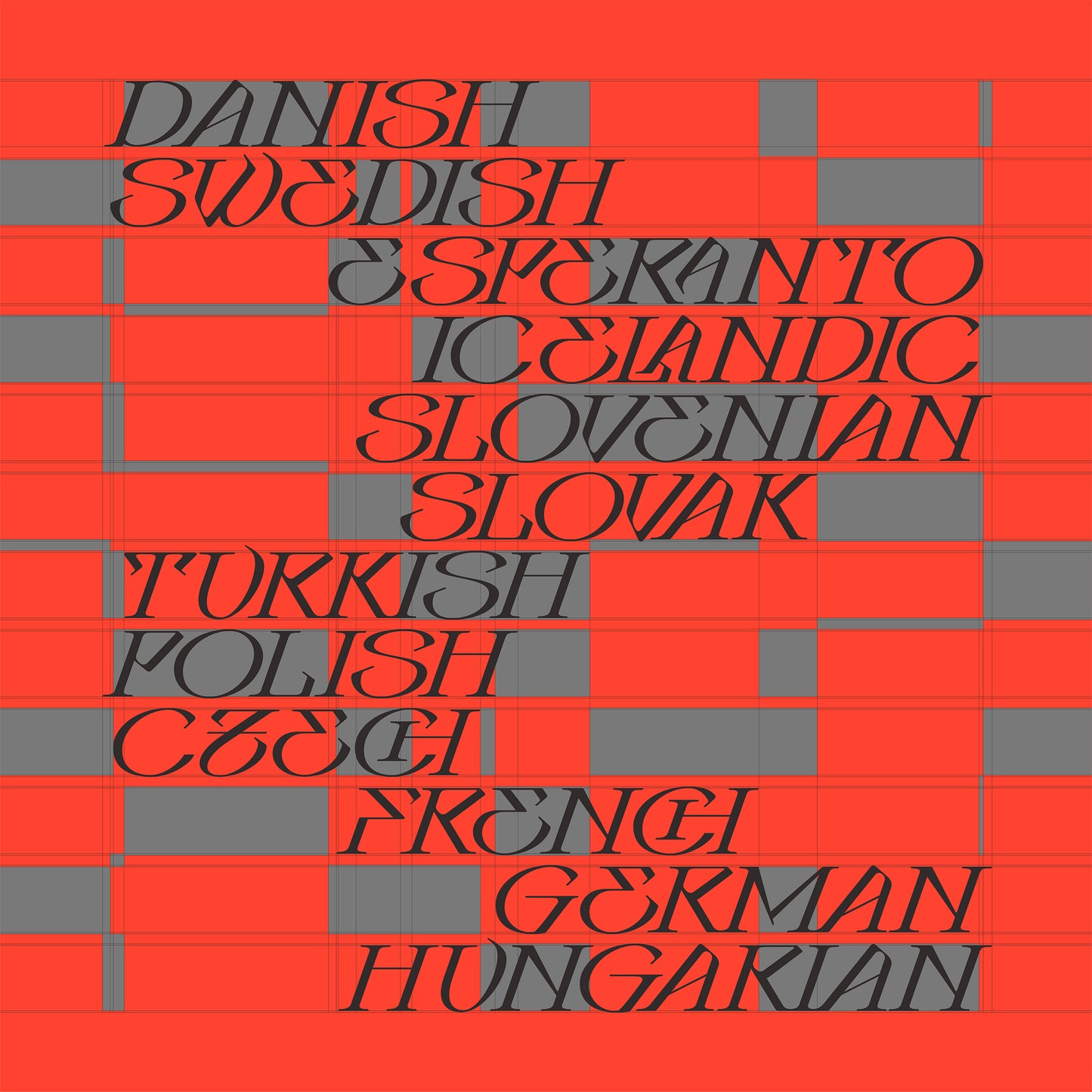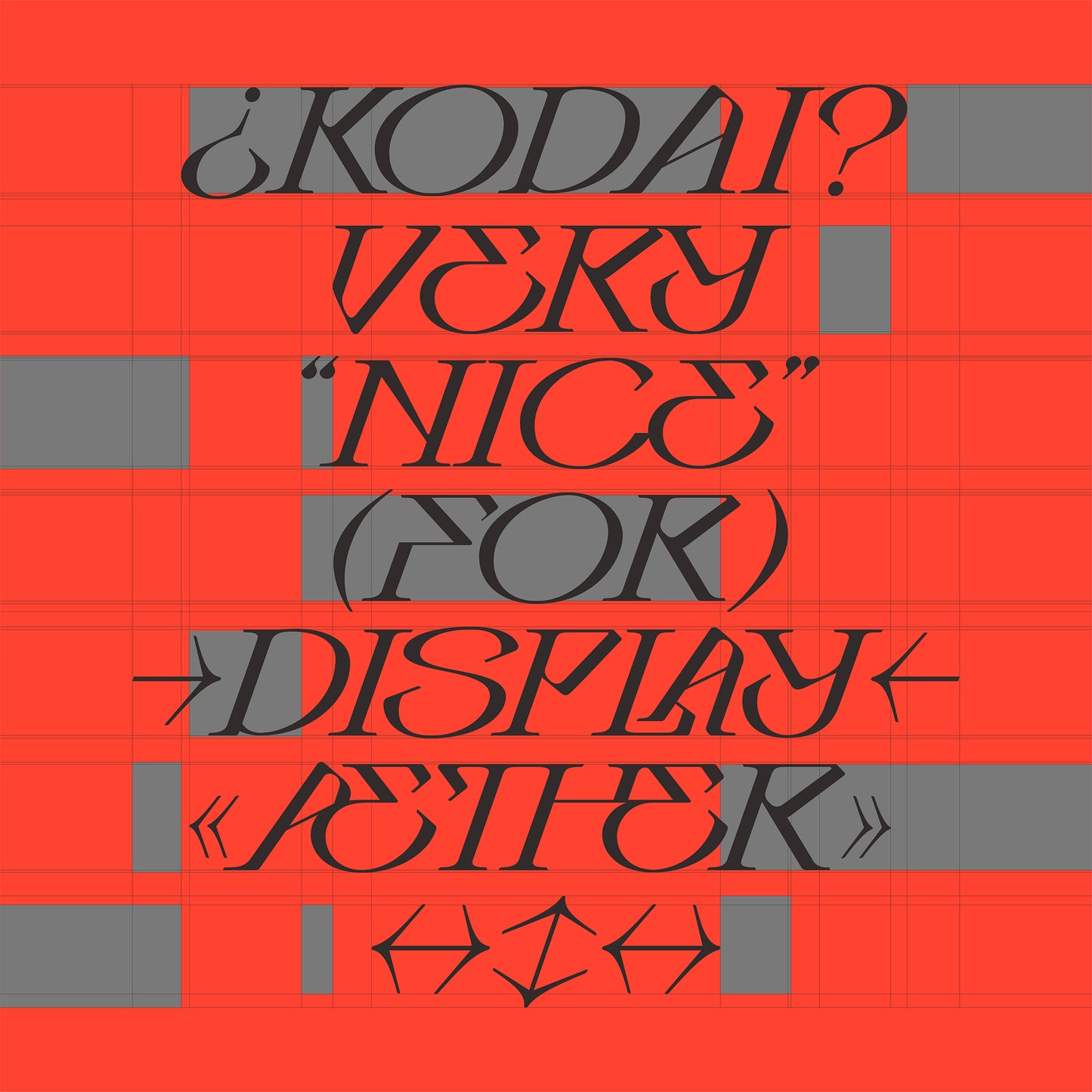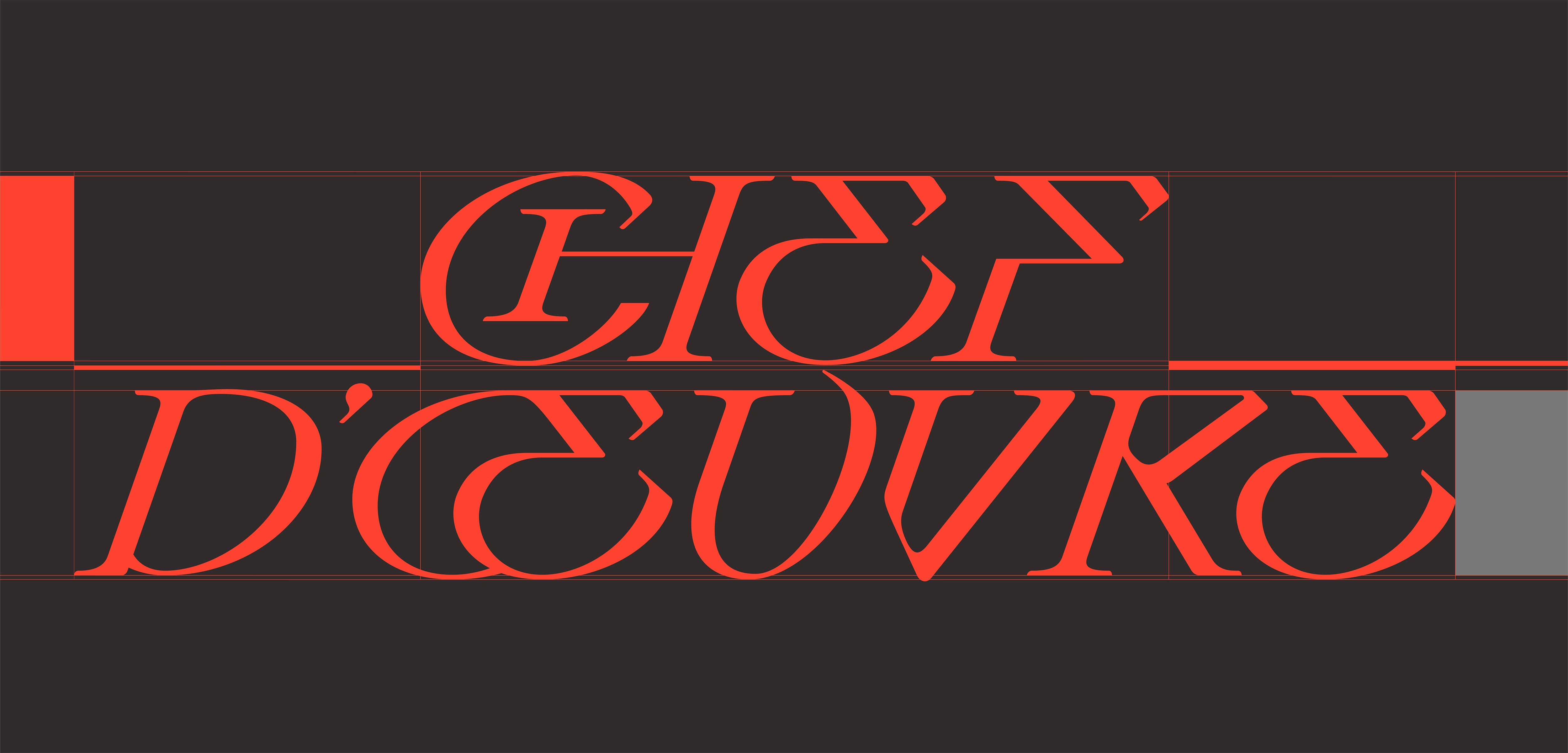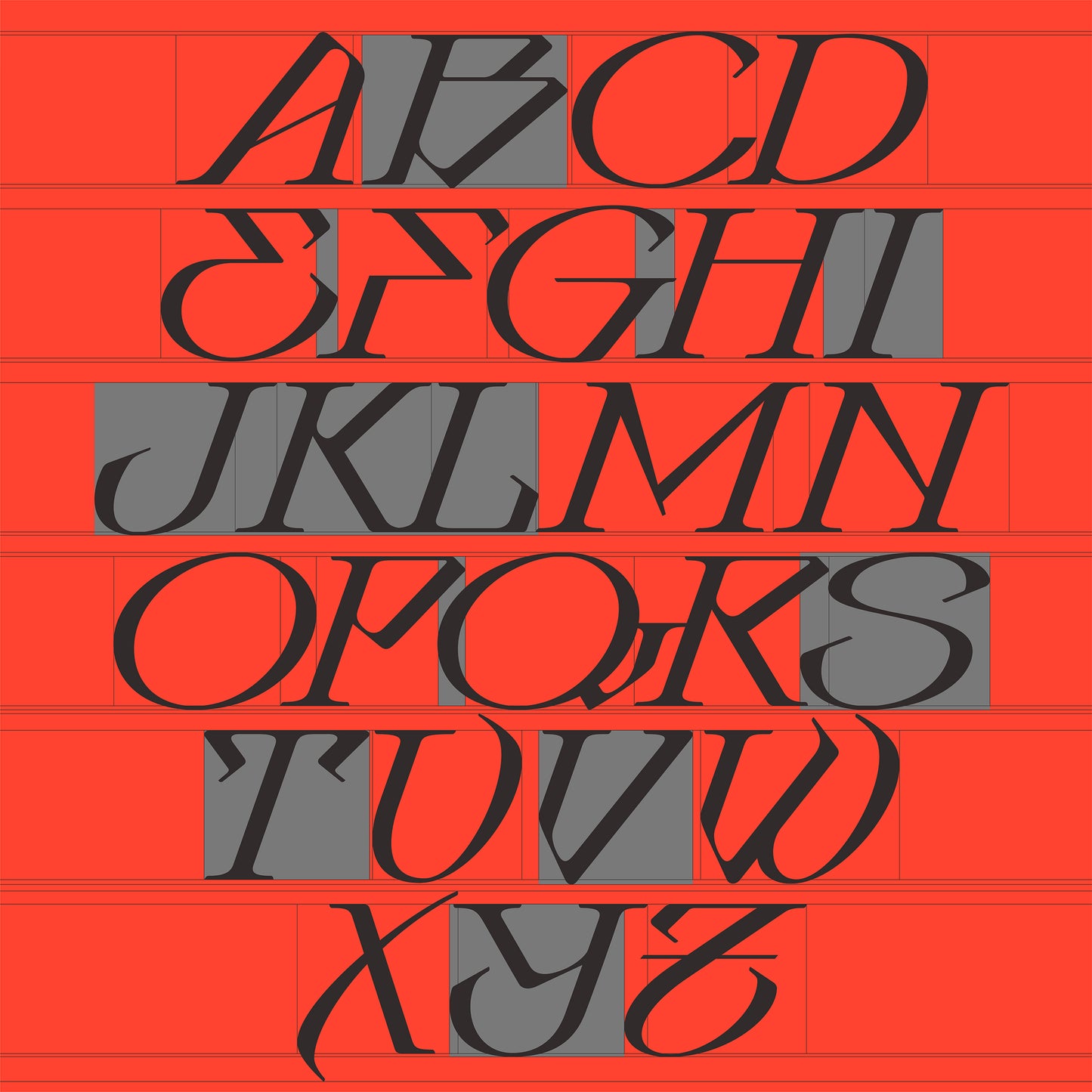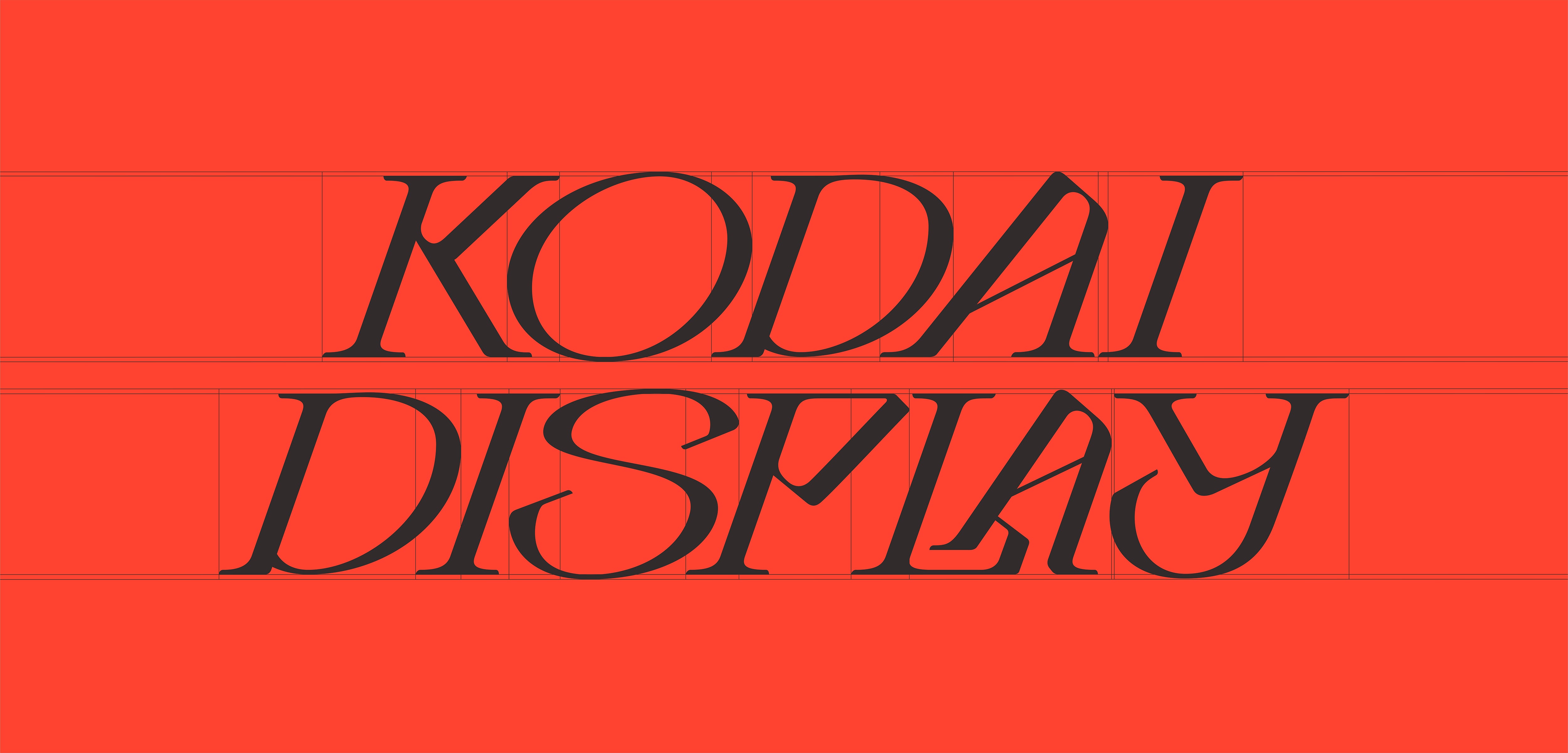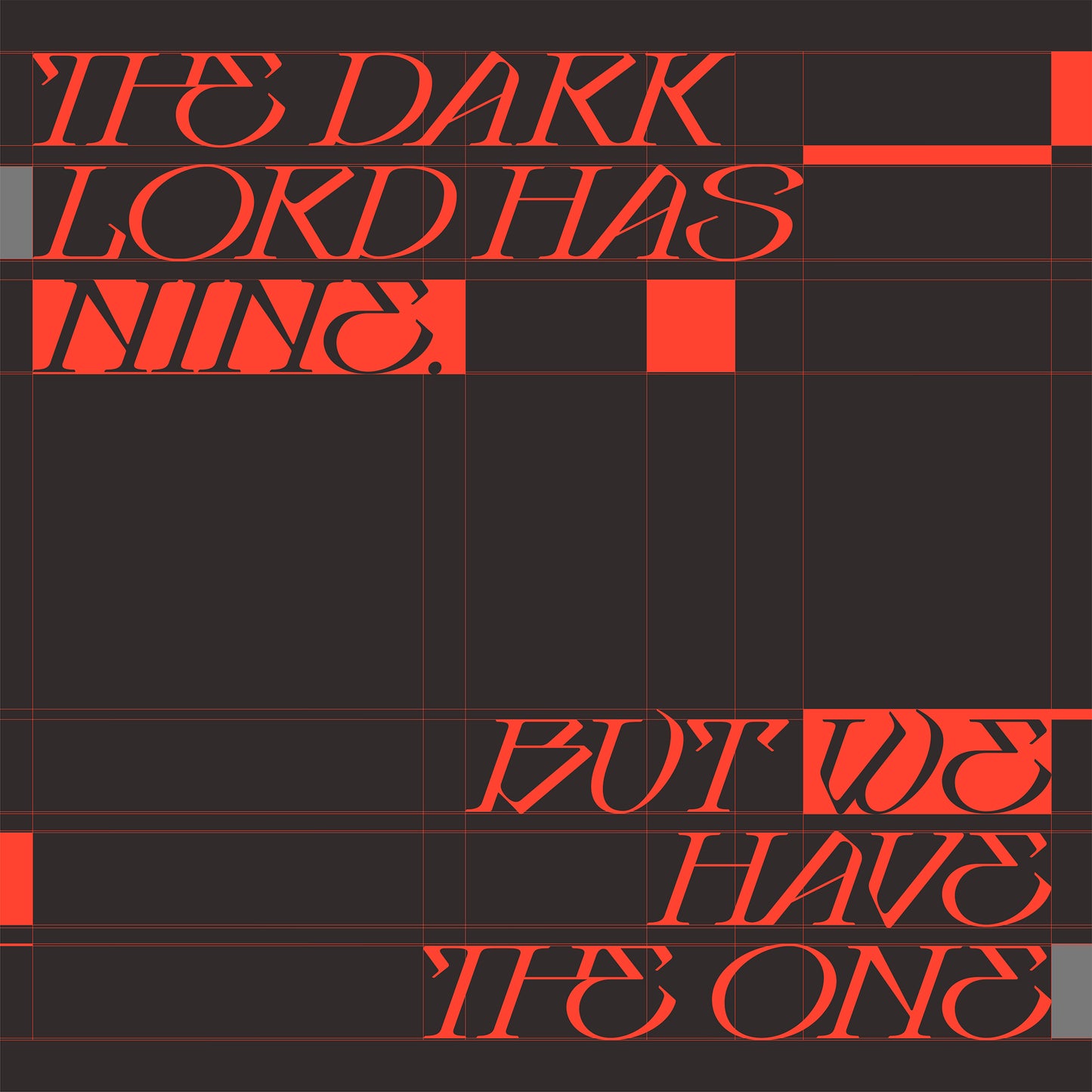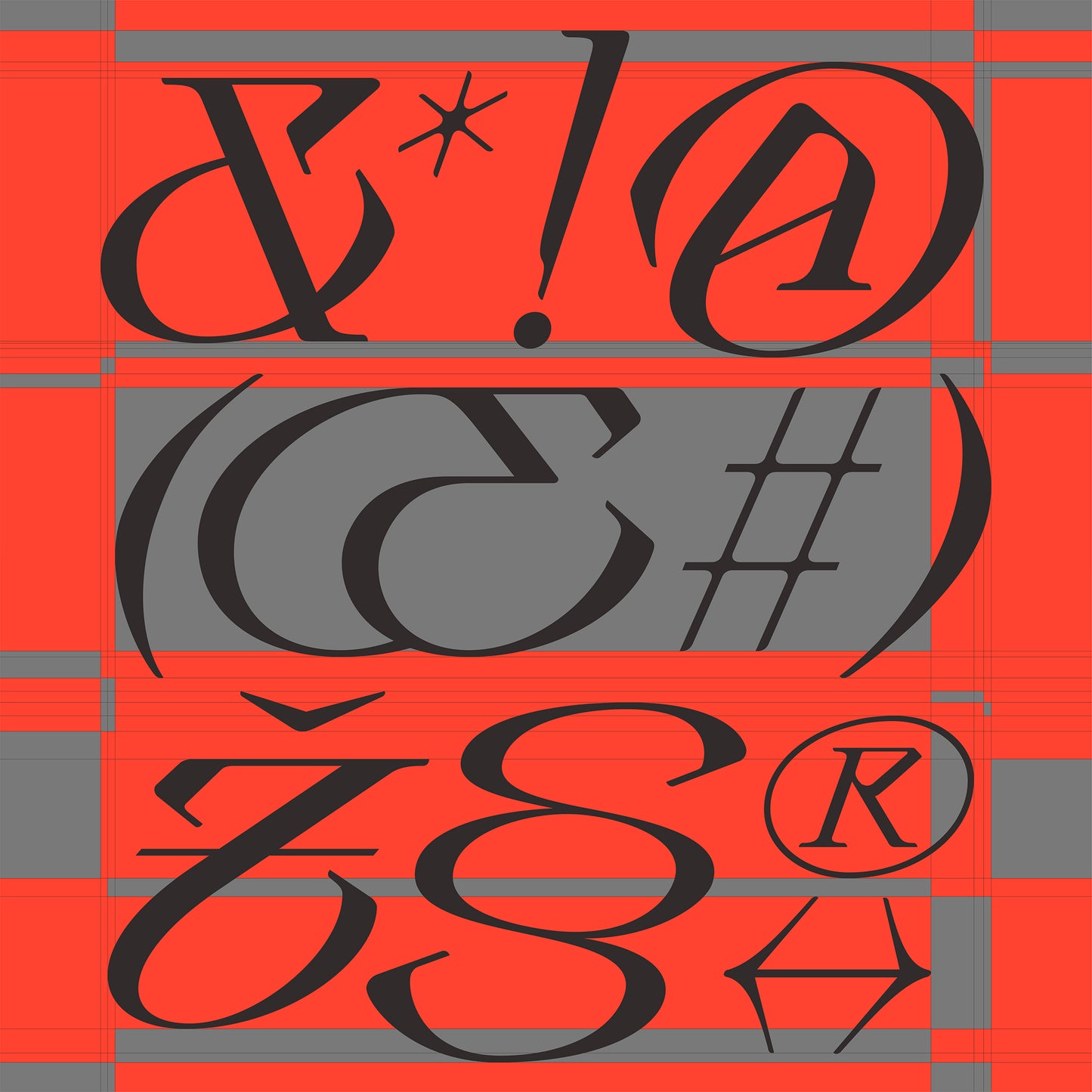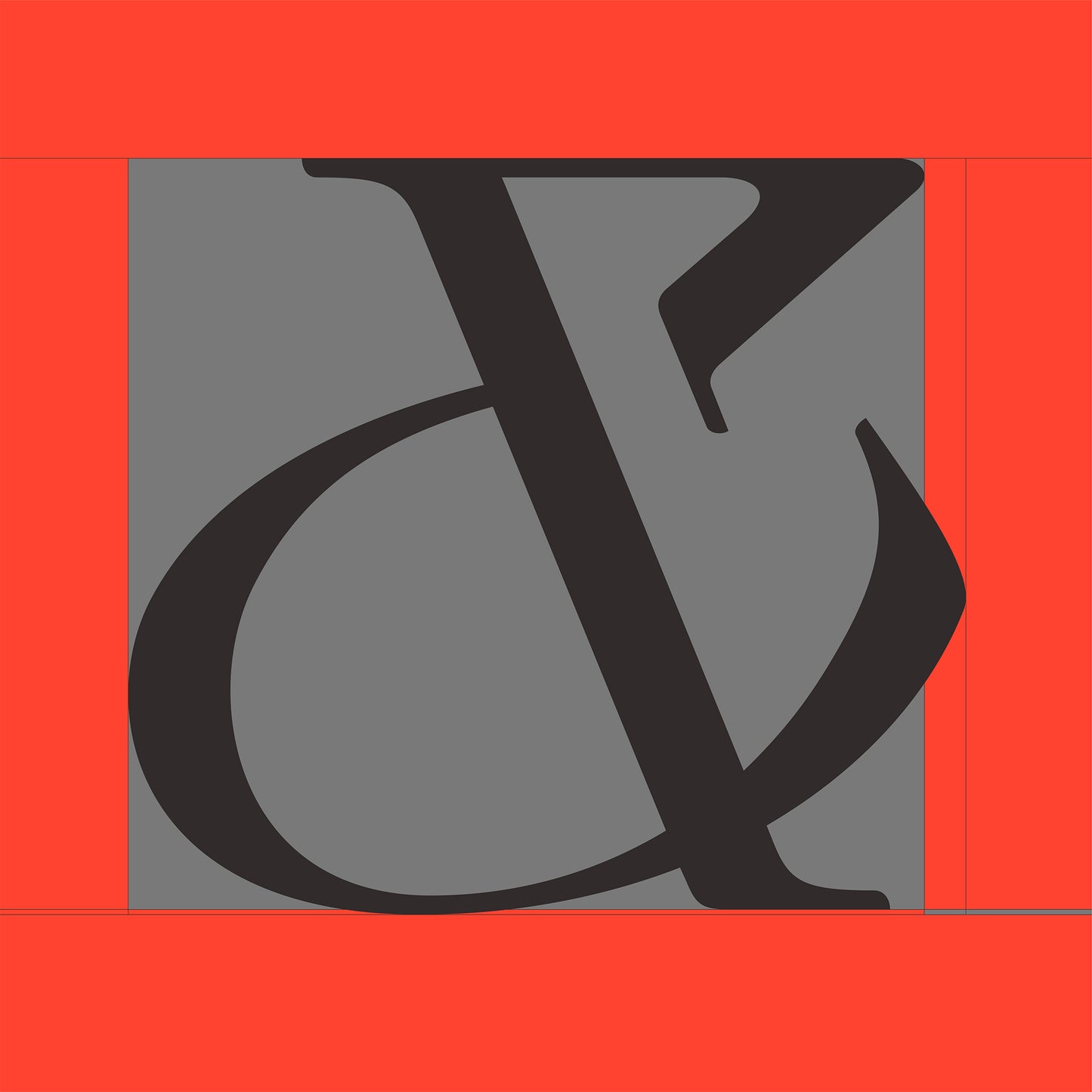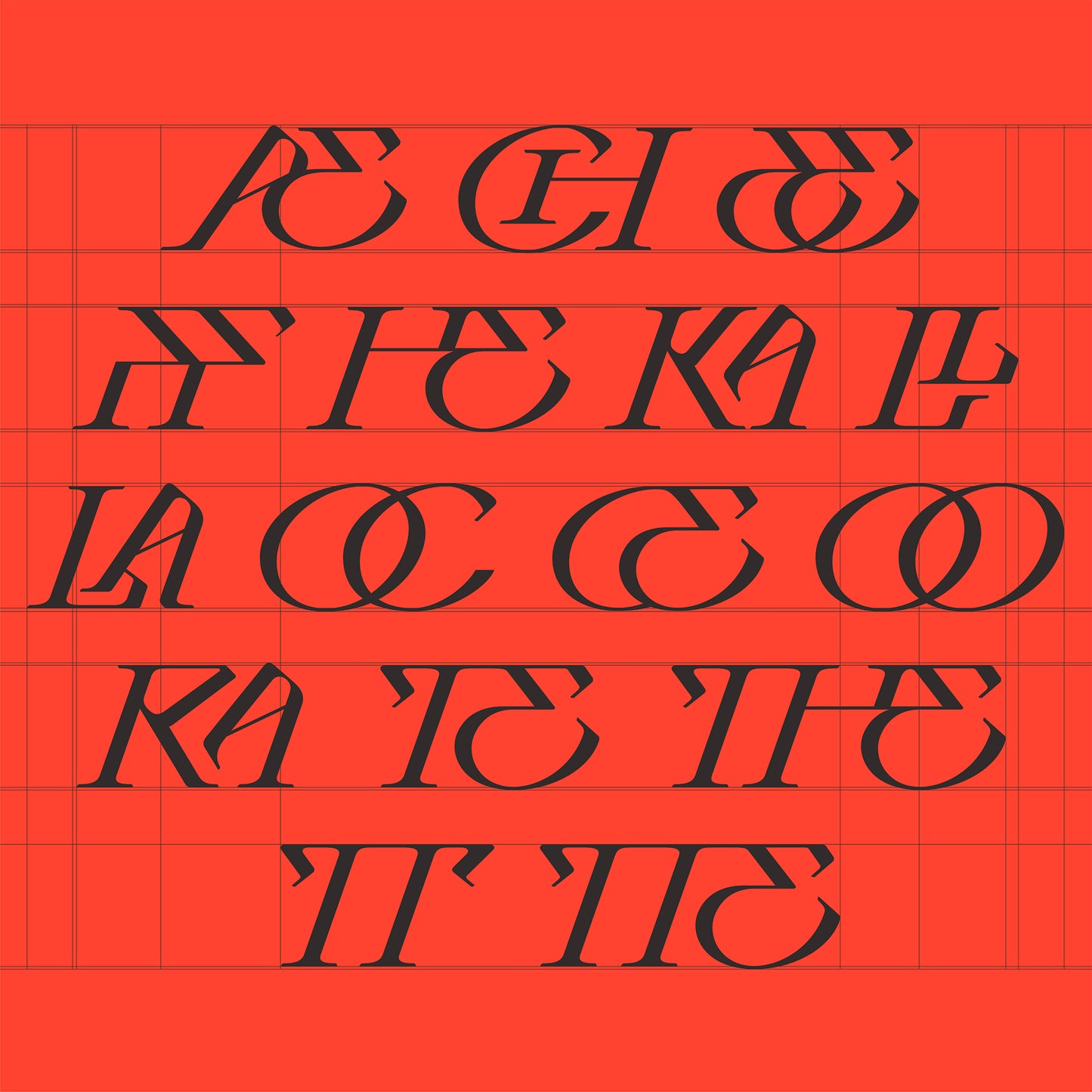
Kodai
Sinuhe Cid
Kodai is a dynamic display typeface that combines expressive, handwritten influences with a sharp, angular design.
Built on a strong italic axis, it captures the energy of handwritten gestures, translating them into sharp forms that give each word a sense of forward momentum